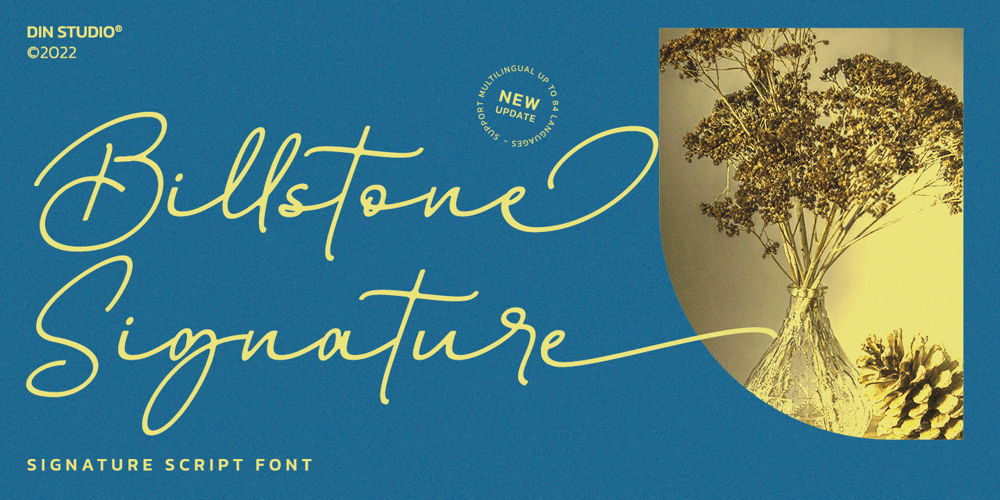
Billstone Signature Font Family was designed by Donis Miftahudin and published by Nathatype. Billstone Signature contains 1 styles and family package options. Are you ready to make your branding stand out? Do you dream of creating headings that stand out and inspire creativity, imagination, modernity, and endless fun? Looking for an elegant and stylish font? We’ve got what you want.Billstone Signatture- A Siganture FontBillstone Signatture is a soft and sweet signature typeface, with characters dancing along the baseline. Designed primarily as a captivating font that has a casual and elegant touch. Can be used for various purposes such as logos, wedding invitations, headings, t-shirts, letterheads, signage, labels, news, posters, badges etc.Our font always includes Multilingual Support to make your branding reach a global audience. Features: Ligatures Stylistic Set Swashes PUA Encoded Numerals and Punctuation Thank you for downloading premium fonts from Din Studio